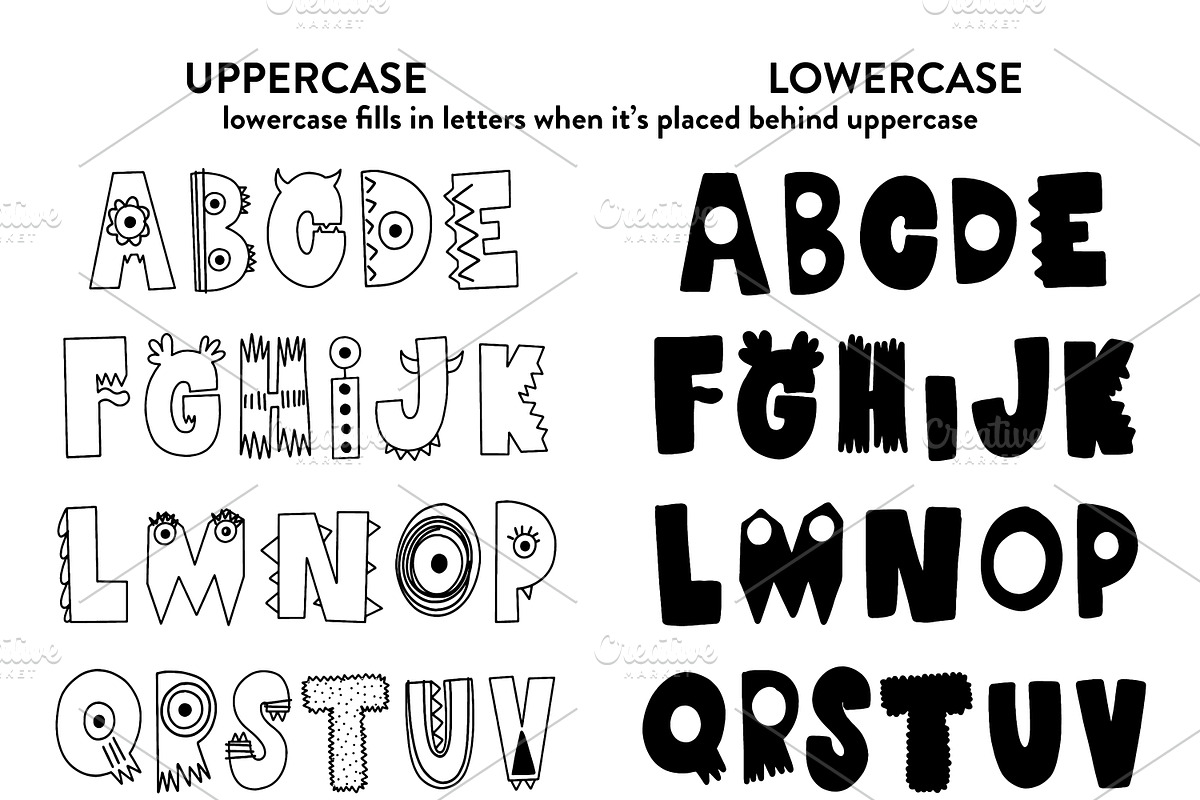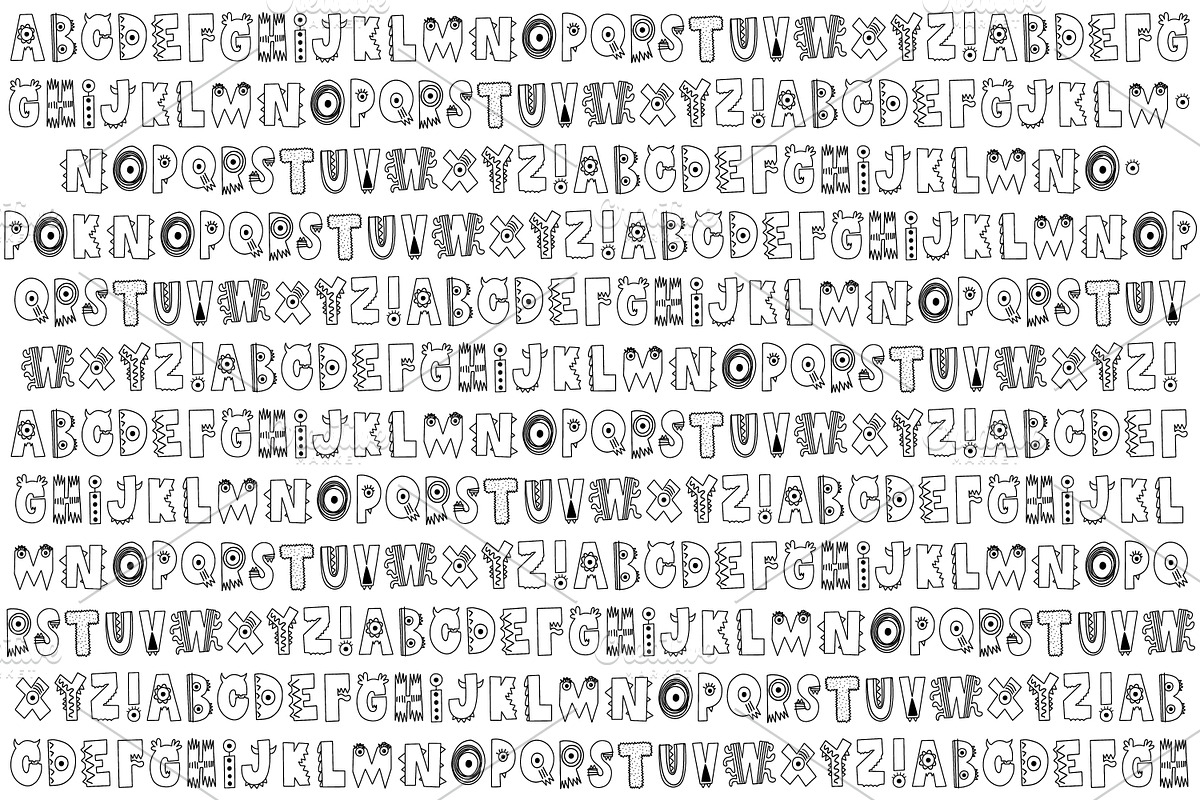
Monster | Hand Drawn Font
Monster is a hand drawn front by Rad And Happy.
Perfect for birthday parties, Halloween, classrooms, or for anyone who just loves monsters!
When you type the font in uppercase, you will get the outlines of the font. When you type lowercase letters, you will get the fill. If you stack them on top of each other (like in adobe Illustrator or Photoshop) you will have the outline and fill. You can then play around with colors and make it unique to what you are using it for.
- When you type the font in uppercase, you will get the outlines of the font.
- When you type lowercase letters, you will get the fill.